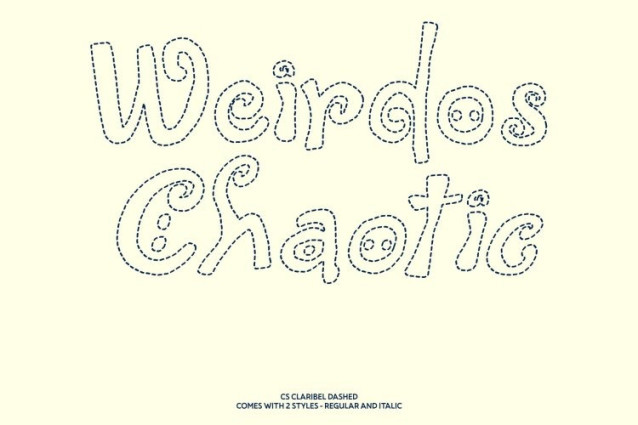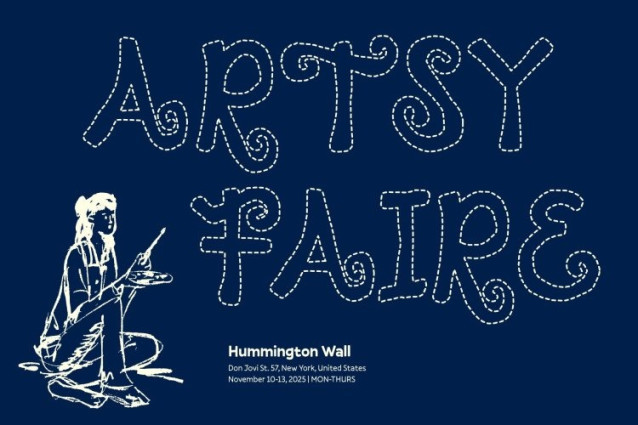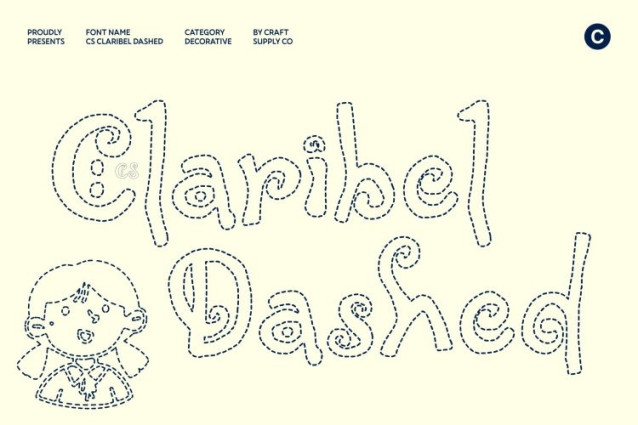
CS Claribel Dashed Font
CS Claribel Dashed Font – This is an artistic decorative display font that blends fantasy-inspired beauty with expressive handwritten charm. Designed with flowing strokes and playful curves, this font radiates imagination and creativity. Its ornamental forms feel light, magical, and full of personality, making each letter feel hand-crafted and alive.
Dashed Letterforms with Whimsical Fantasy Appeal
What sets apart is its distinctive dashed style. The letter structures are intentionally broken into short, delicate segments rather than solid continuous strokes, creating a soft, airy rhythm across the text. This dashed construction adds visual movement and an organic feel, enhancing the font’s whimsical and relaxed nature.
Perfect for Invitations, Branding, and Elegant Posters
This font thrives in expressive and decorative applications such as wedding invitations, boutique branding, greeting cards, children’s books, and elegant event posters. The dashed strokes add personality and warmth, turning words into artistic elements that feel personal and enchanting. It’s ideal for designs that aim to feel creative, gentle, and emotionally engaging.
Expressive, Relaxed, and Imaginatively Crafted
More than just a typeface, this font is a celebration of creativity and storytelling. Its dashed forms convey a relaxed, handcrafted vibe while maintaining elegance and fantasy-inspired sophistication. Perfect for designers who want to add a whimsical, poetic, and magical touch, this font transforms typography into a captivating visual experience that feels both playful and unforgettable.